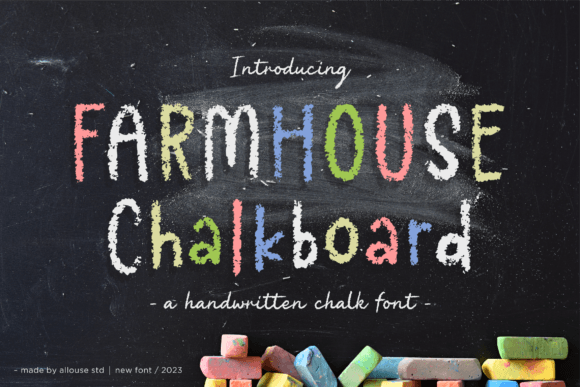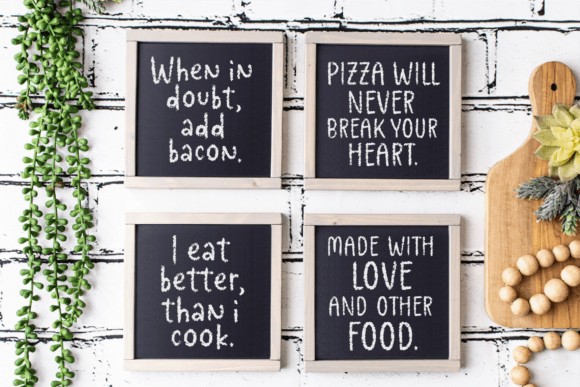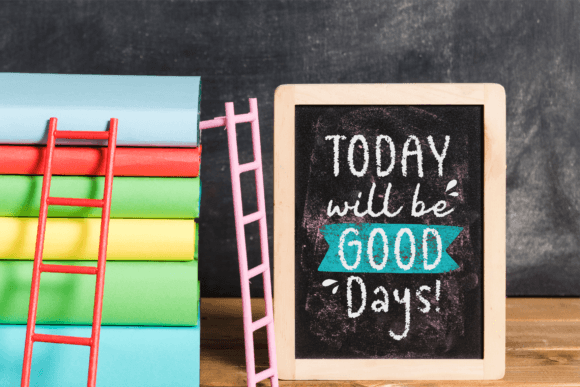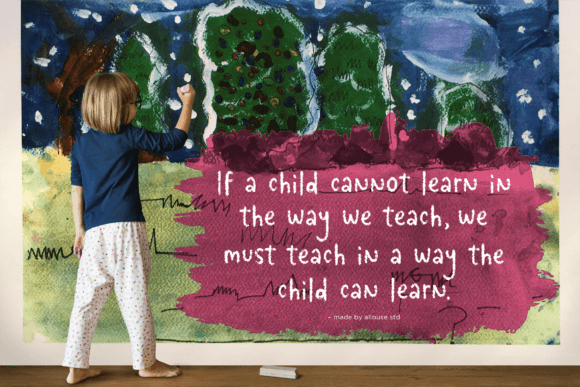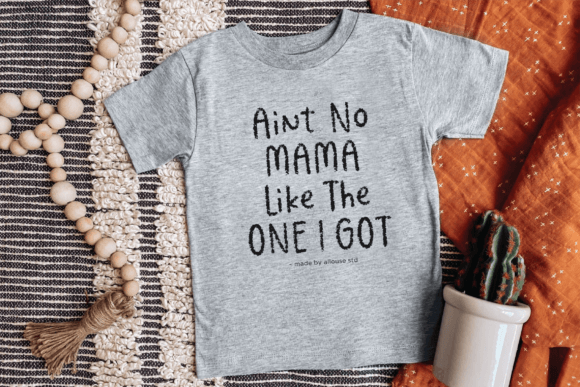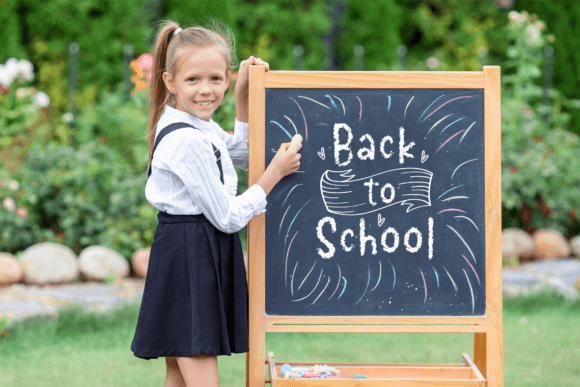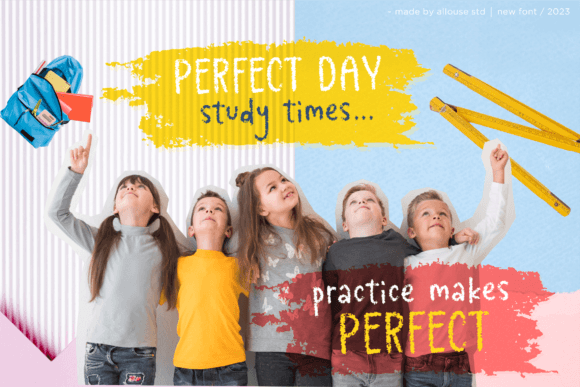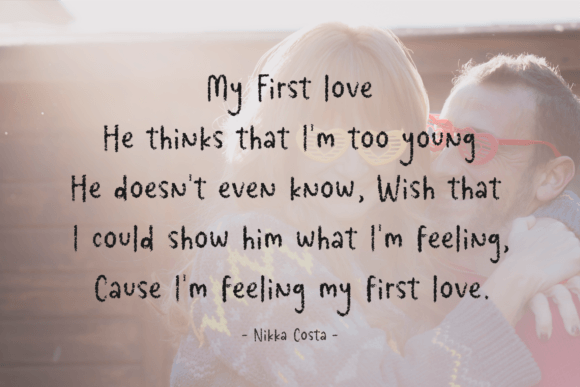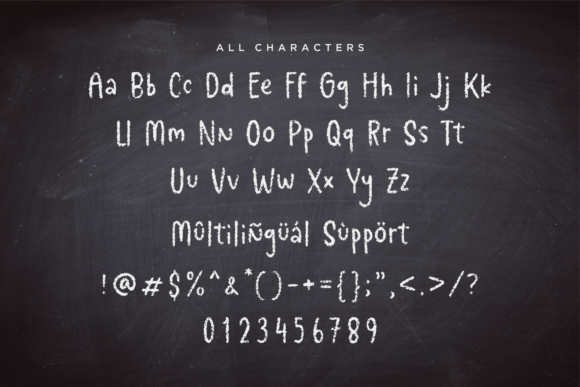
Farmhouse Chalkboard Font
Farmhouse Chalkboard is a stylish and delicate script font. It has a clean, thin, and smooth vibe and it will be a hit for any design that you want to add it to.